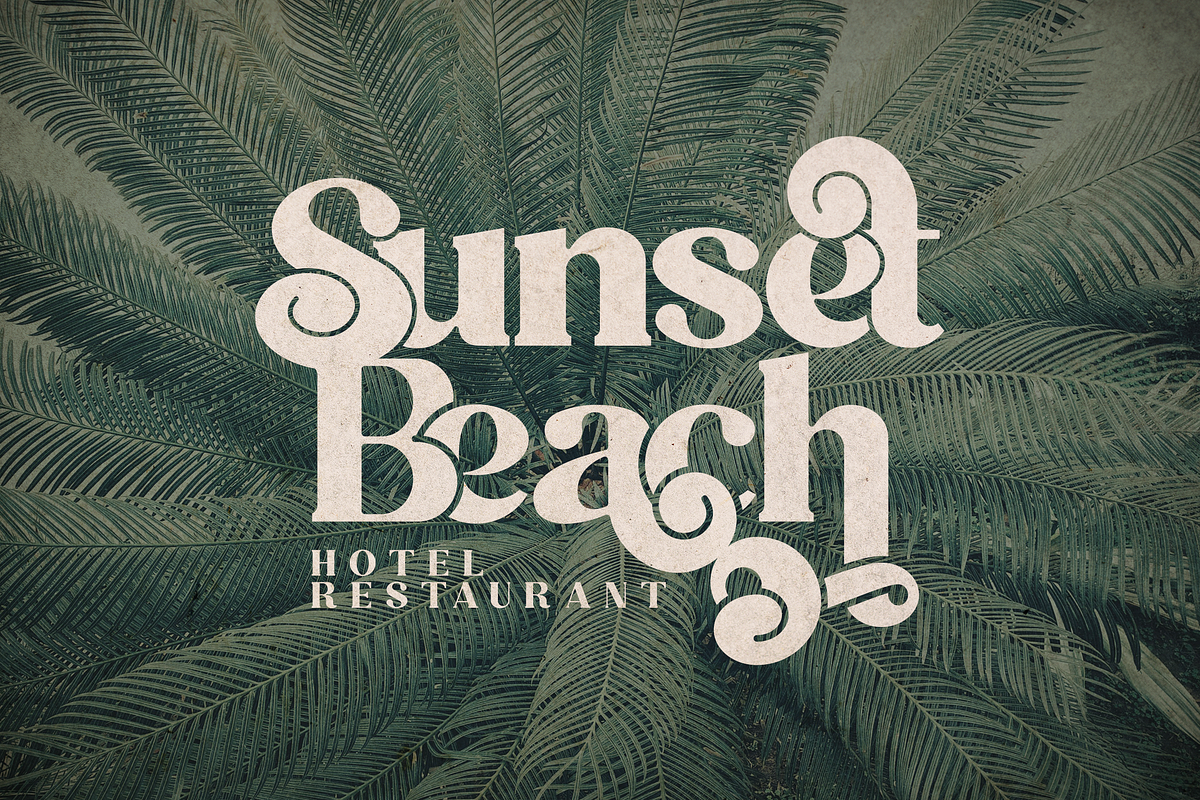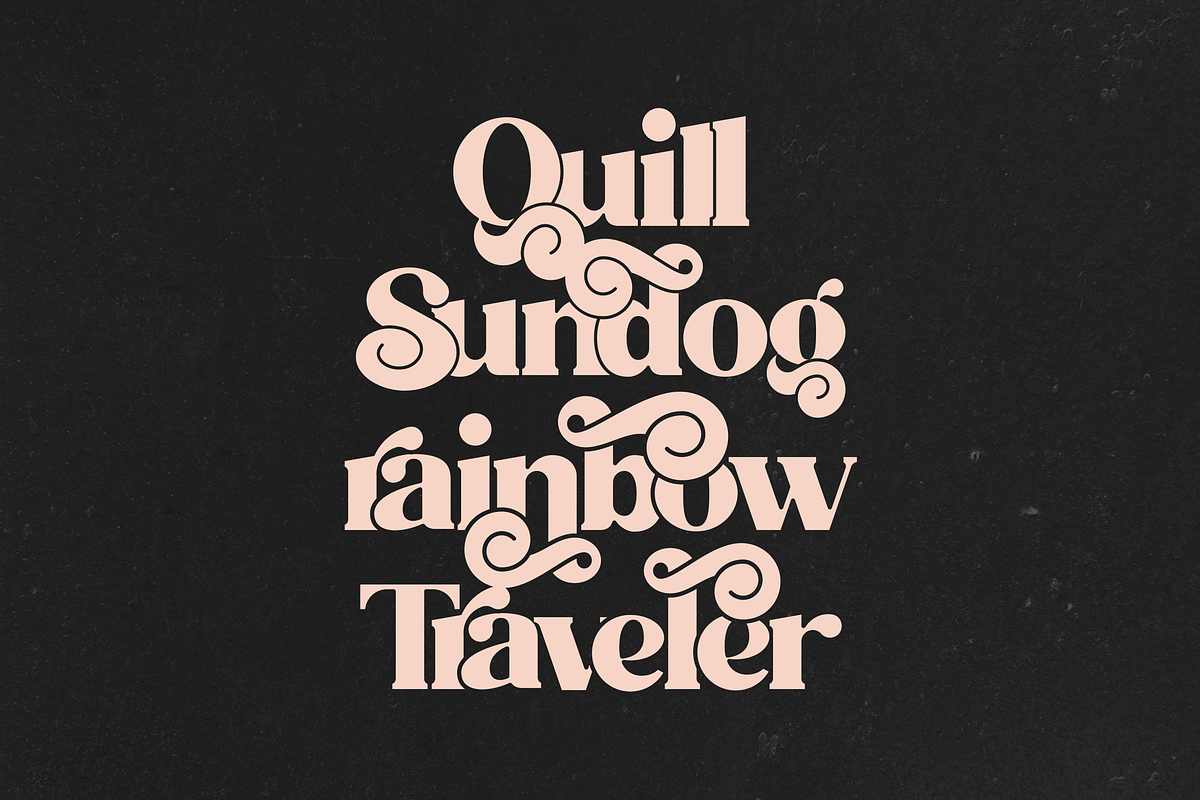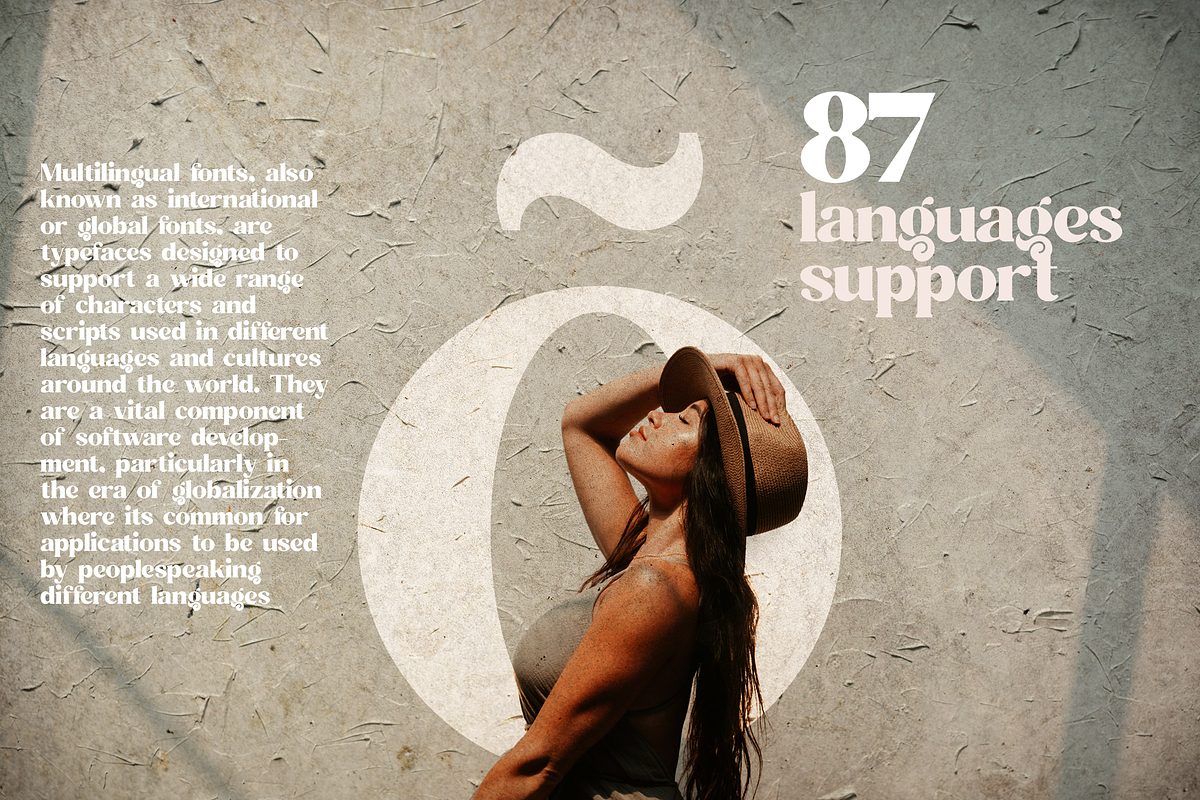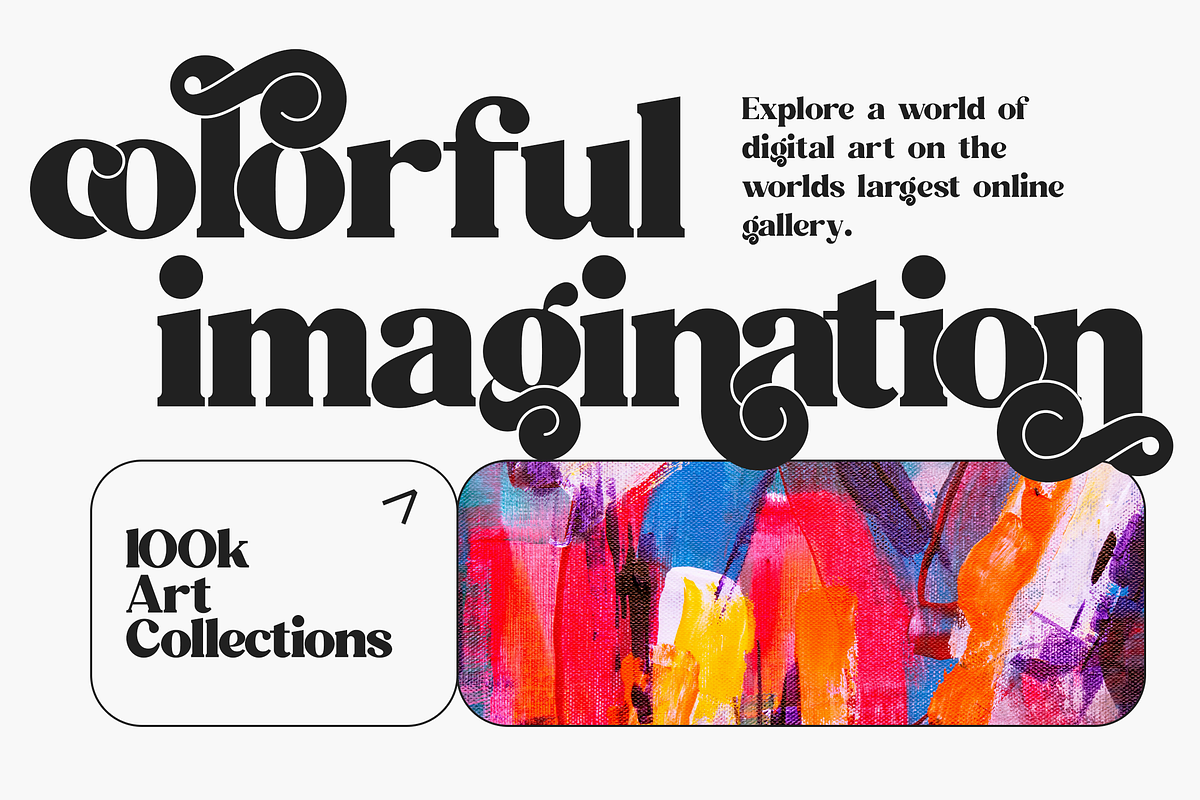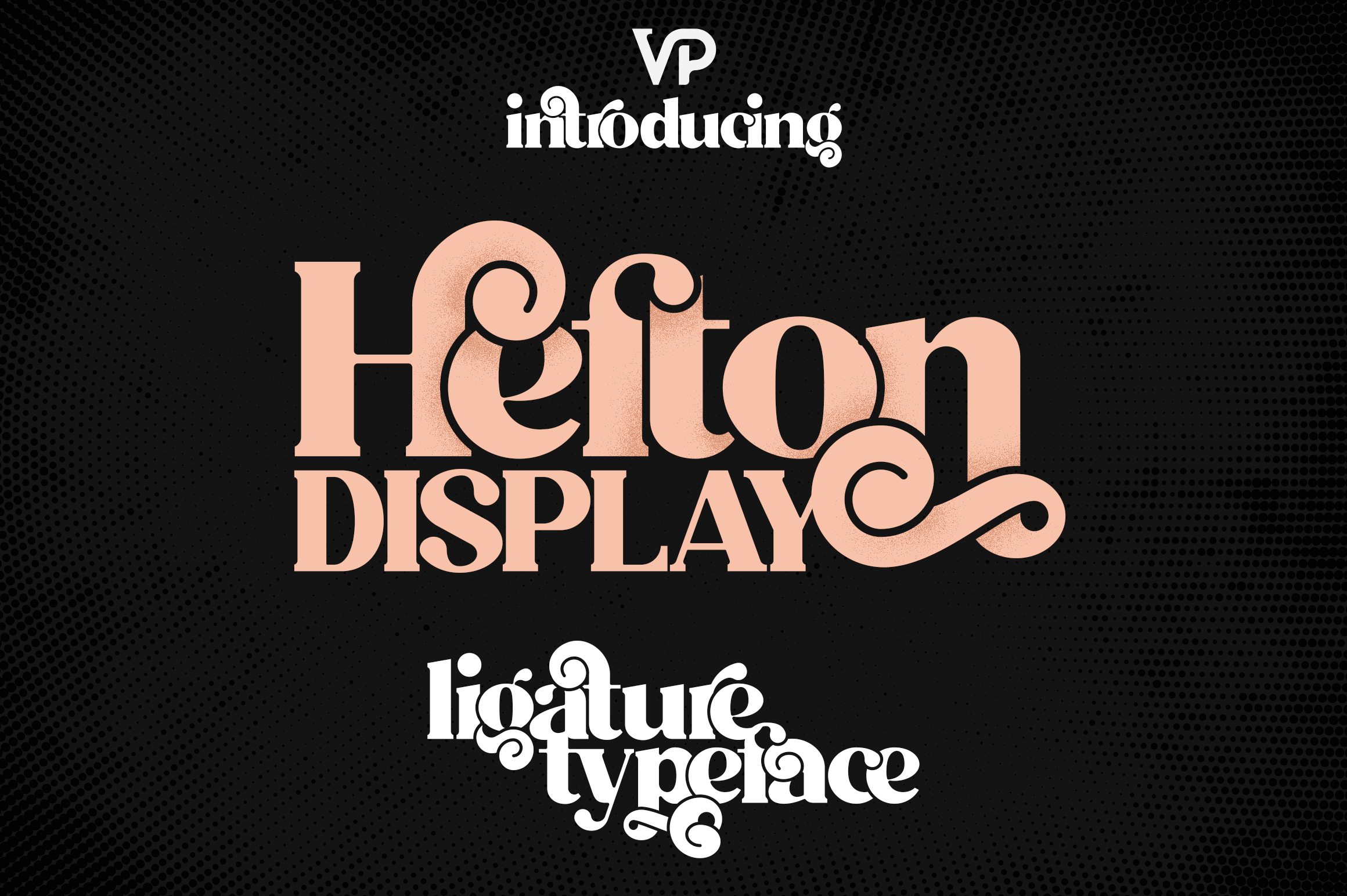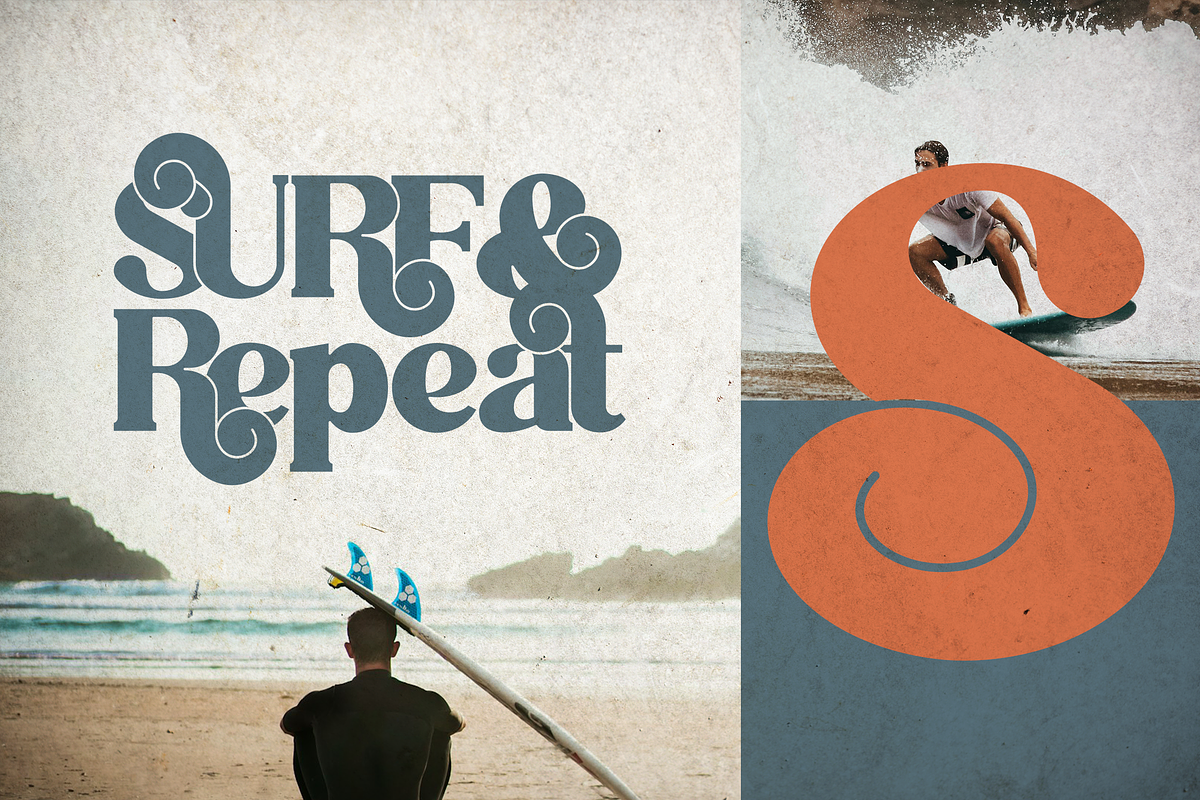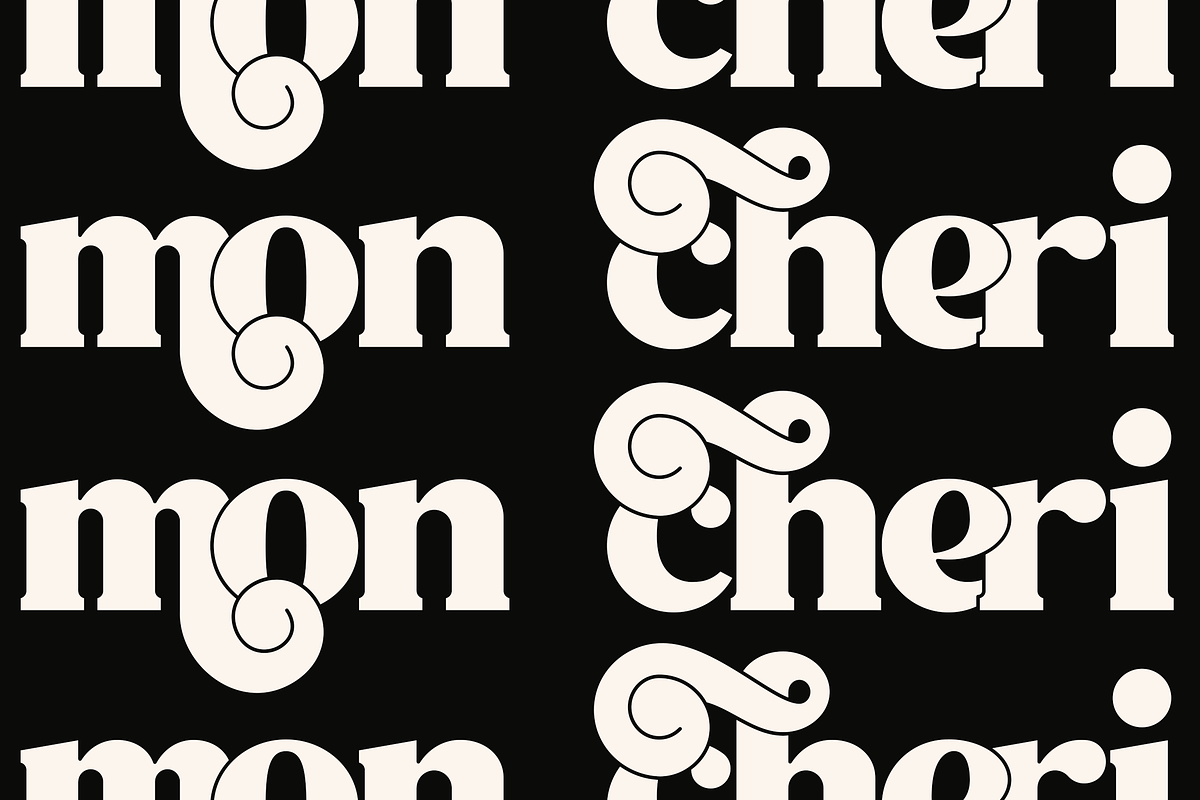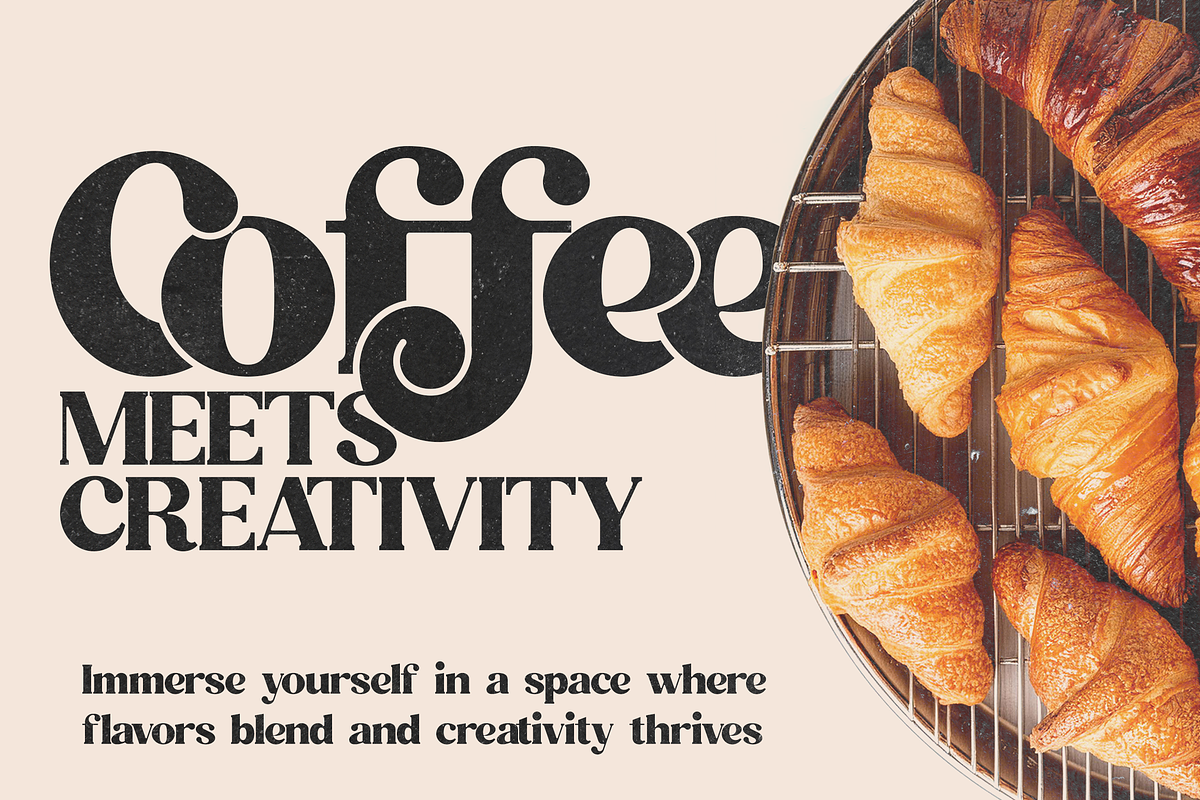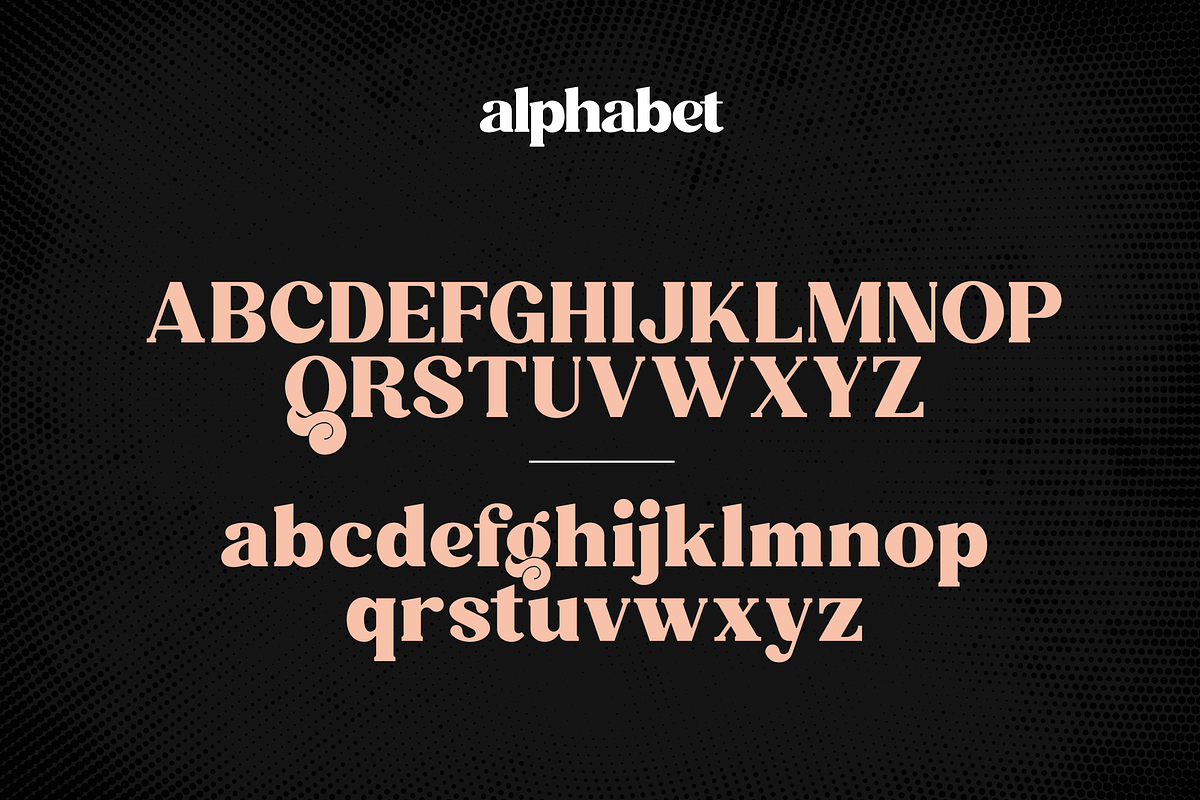
Hefton - ligature display typeface
Hefton Typeface is a meticulously crafted display ligature font developed over five months, featuring over 200 ligature glyphs, alternate characters, and support for 87 languages. Available in light, regular, and bold weights, Hefton seamlessly blends vintage charm with a modern aesthetic, making it a versatile choice for your design projects.